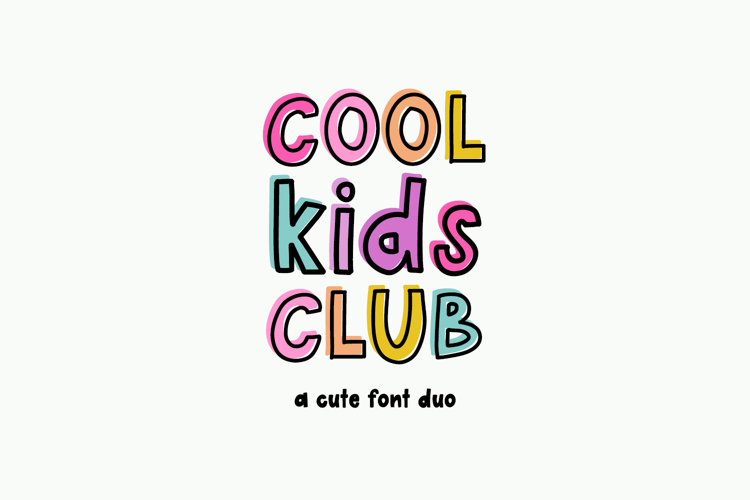
Cool Kids Club Sans - Font Duo
Cool Kids Club is a sans font duo featuring a solid version and an outline version. This duo is cute & legible. Each font can stand on its own, or you can layer them, or mix & match for your project. Cool Kids Club is perfect for logos & branding, greeting cards, painted banners, digital planners, note-taking apps, Canva, Cricut projects, Silhouette projects, designing SVG files, laser cutting projects, & more.